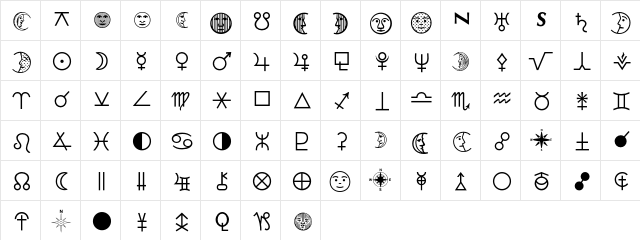
Astrology P02
Design Context for Astrology Typeface
Astrology is a composed and adaptable typeface that performs quietly and consistently across a wide range of design contexts.